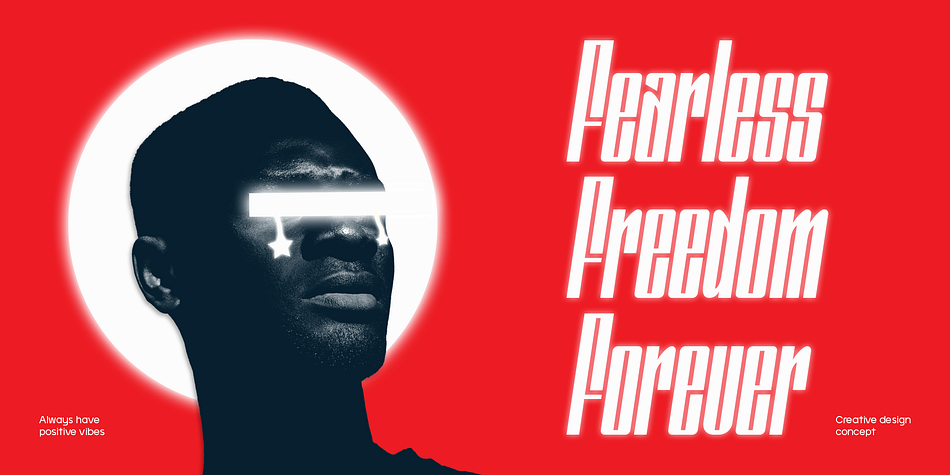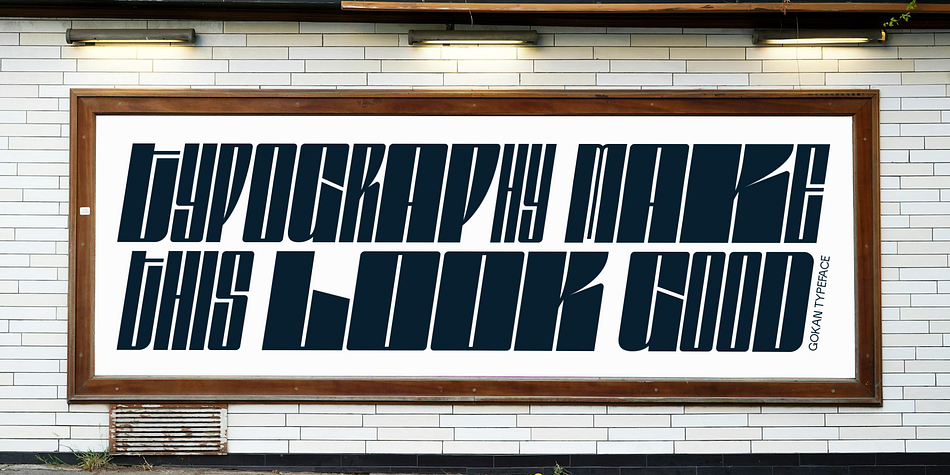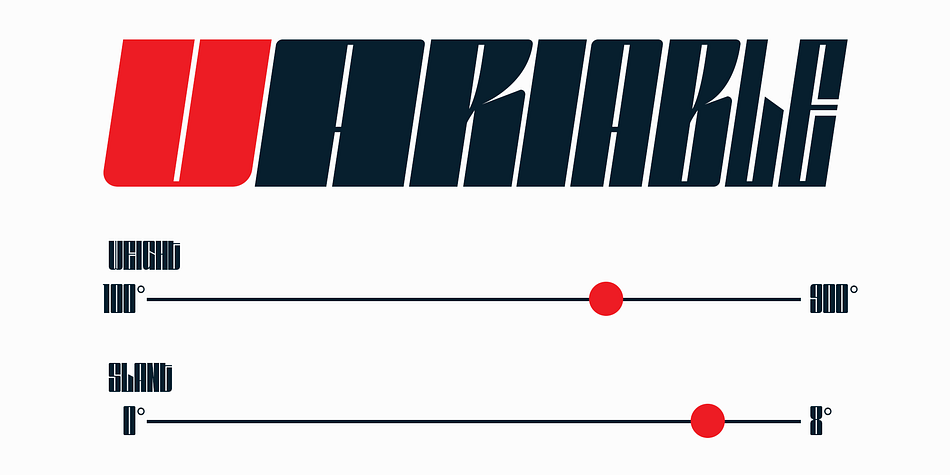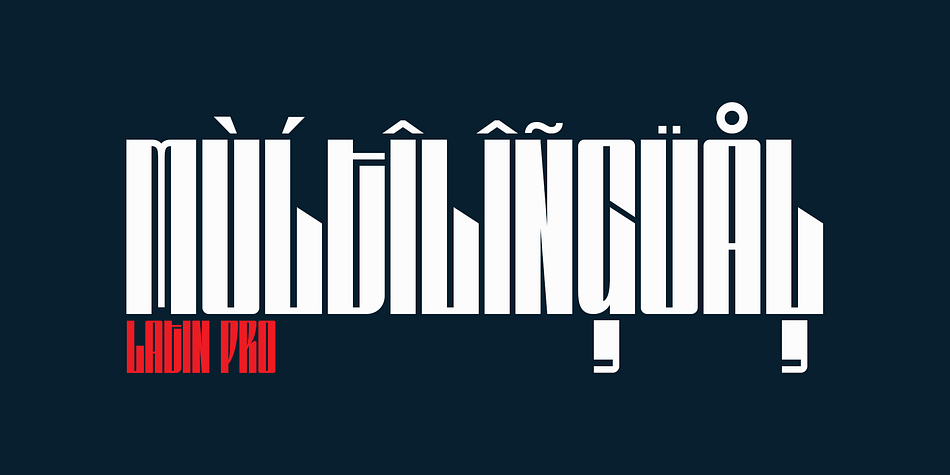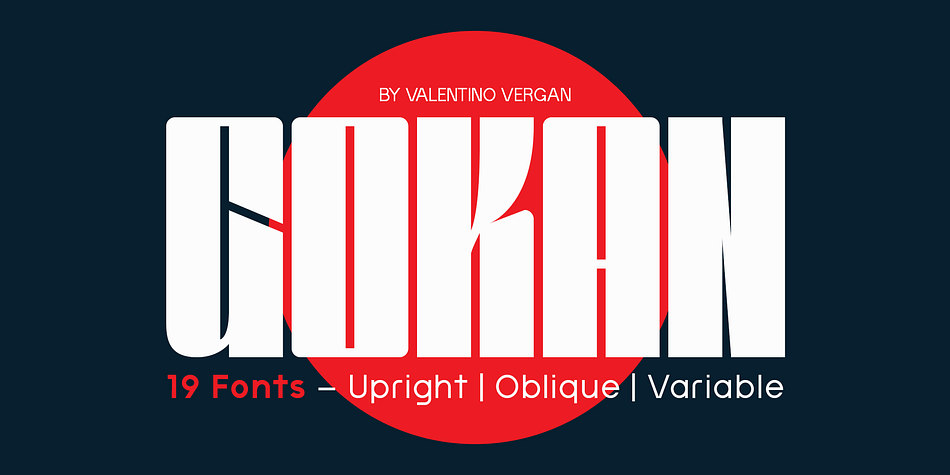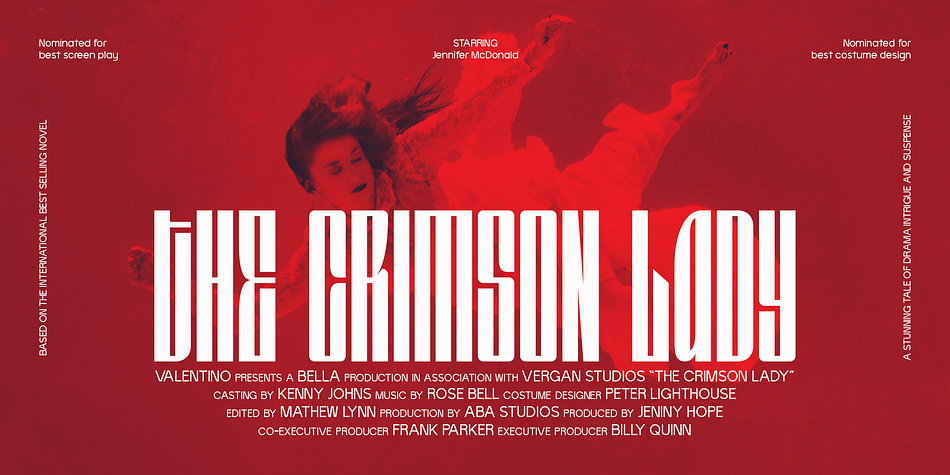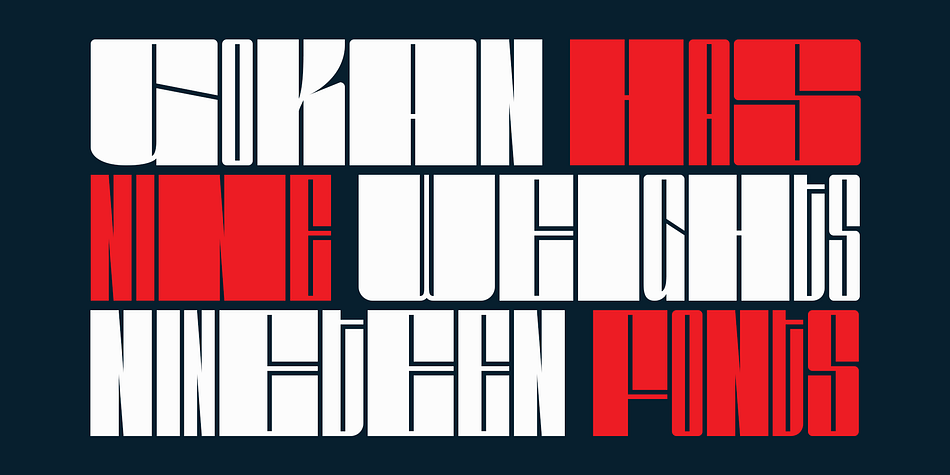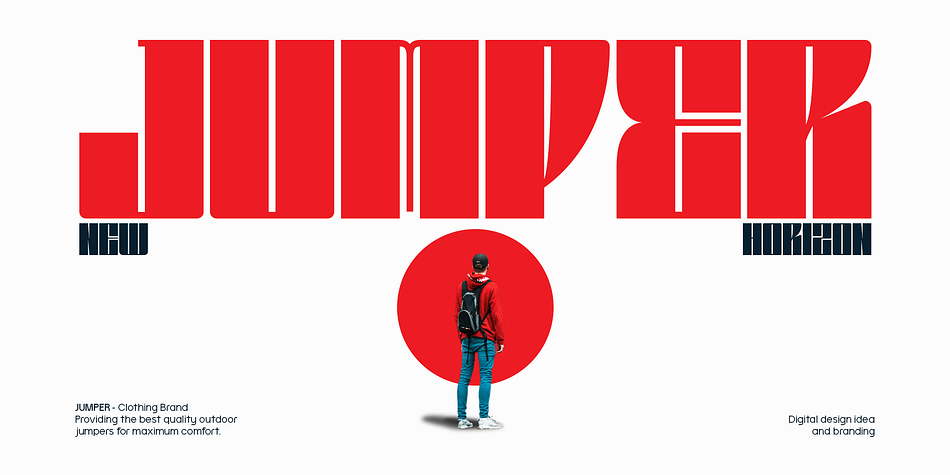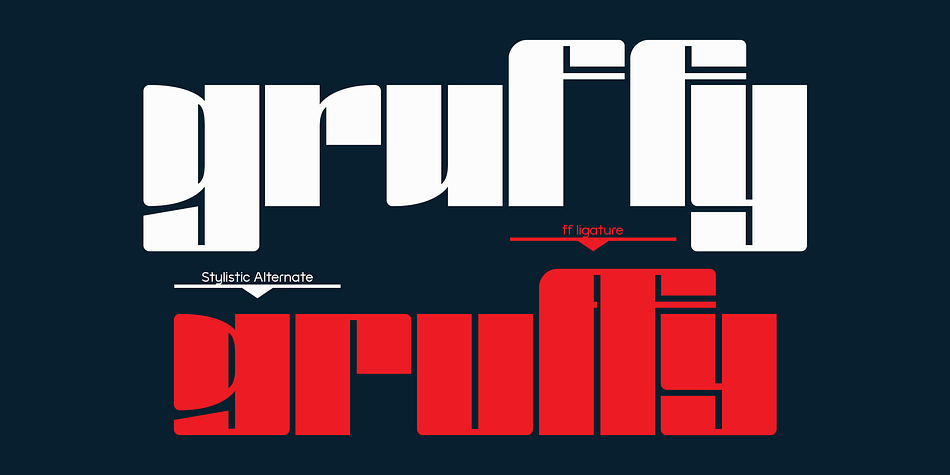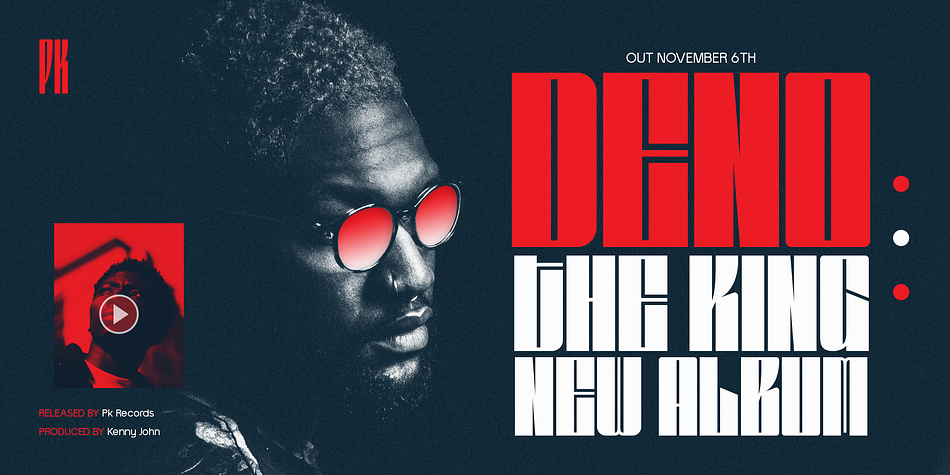
Gokan
Designed by Martin Katibi, Gokan is a display font family. This typeface has nineteen styles and was published by Valentino Vergan.
Meet Gokan Bold, a powerful variable sans serif font designed for brands that aren’t afraid to stand out. With bold proportions, clean geometry, and sharp detailing, Gokan is built to command attention—whether in bold headlines, dynamic logos, or cutting-edge interfaces.
Its variable font technology gives you total control over weight and expression, unlocking limitless creative possibilities in one streamlined typeface. From bold statements to sleek subtleties, Gokan Bold adapts to your message while maintaining a strong, modern aesthetic.
Perfect for creative agencies, designers, and forward-thinking brands, Gokan Bold is more than a font—it’s a visual statement.
BEST SUITED FOR:
Modern branding & identity systems
Web and mobile UI/UX
Headline and display use
Tech, fashion & editorial design
Bold advertising campaigns
Design with intention. Speak with boldness. Make Gokan Bold your signature typeface.